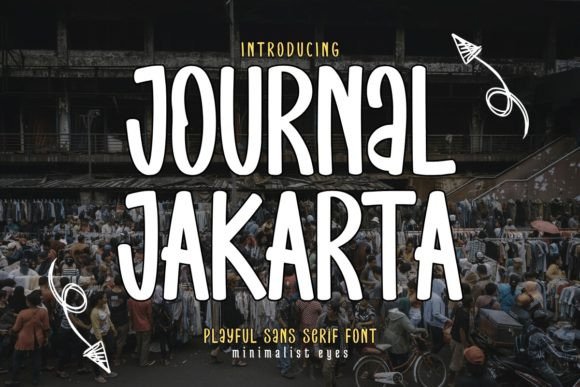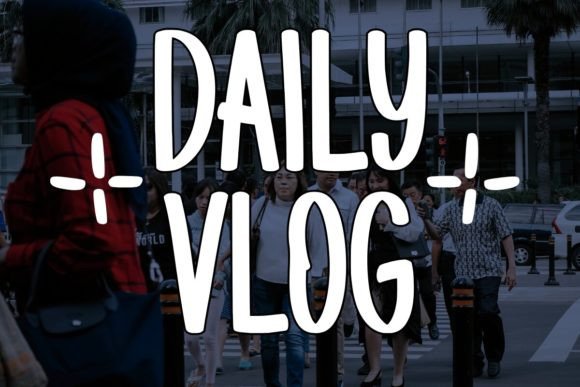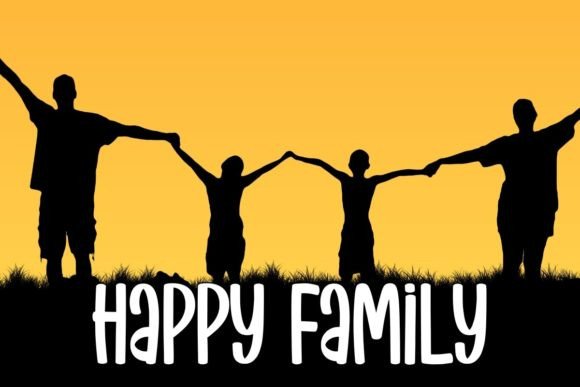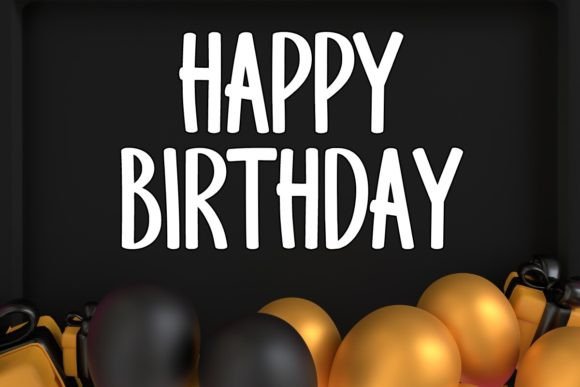
Journal Jakarta Font: A Cute Sans Serif for Playful Branding
About the Journal Jakarta Font
Elevate your designs with Journal Jakarta Font, a font that combines sophistication with readability. Journal Jakarta a modern and friendly sans-serif font, is a delightful blend of whimsy and clarity. Its playful curves and rounded edges bring a sense of warmth to any design. Perfect for children’s books, invitations, and branding, Journal Jakarta radiates a sweet charm that captures attention with its inviting personality.
Journal Jakarta excels in display applications such as headlines, logos, and short-form text on packaging or posters. Its friendly nature makes it ideal for brands targeting a youthful or family-oriented audience. Avoid using it for large blocks of body text or UI elements; the rounded forms can reduce readability in smaller sizes or prolonged reading.
Pairing Journal Jakarta with a clean sans-serif like Helvetica Neue for body copy creates a balanced contrast of playful and professional. Alternatively, a classic serif font such as Garamond adds a touch of sophistication, tempering the font’s inherent playfulness. For a more modern feel, consider pairing it with a geometric sans-serif font like Futura.
The overall personality of Journal Jakarta is cheerful and approachable, conveying warmth and approachability without sacrificing legibility in appropriate applications.
Journal Jakarta Font Usage Examples
Journal Jakarta Font Example